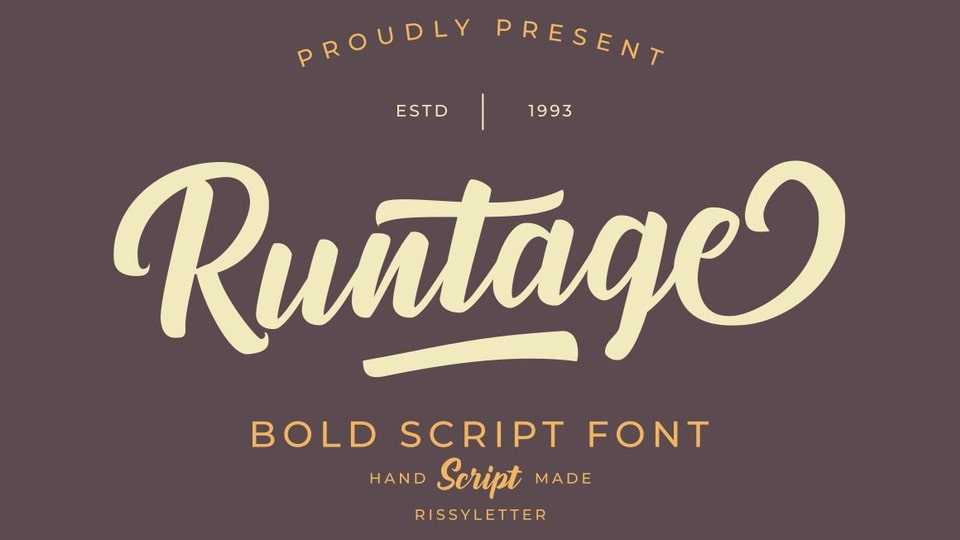
Download Runtage font, a stylish and modern hand lettered script but can also be used for vintage projects. Runtage font will look awesome and amazing in many ways to your latest project.
Designer: Rissyletter Studio